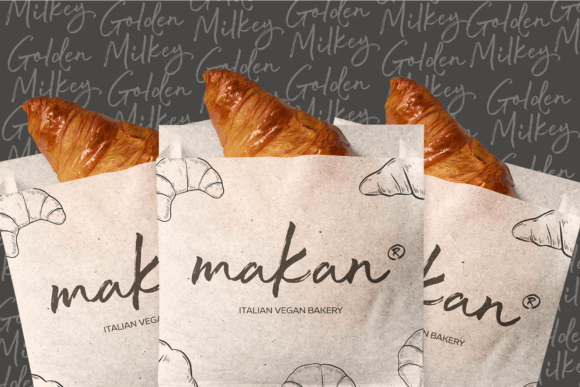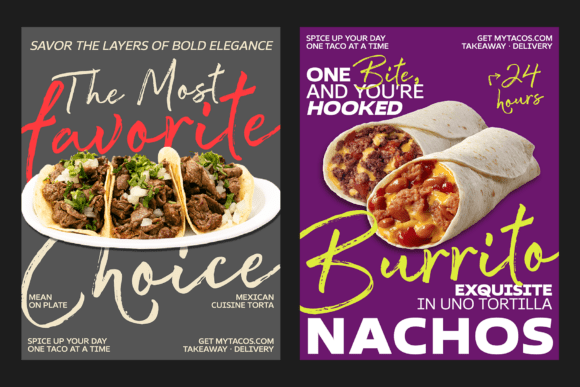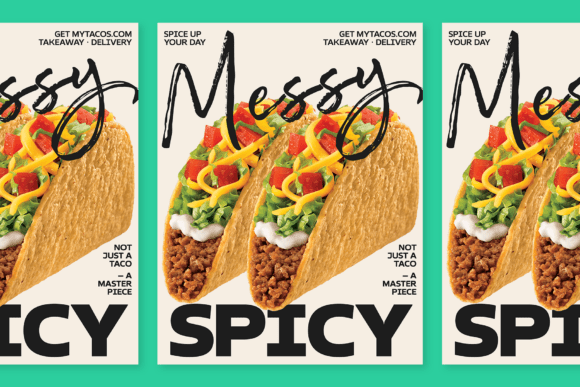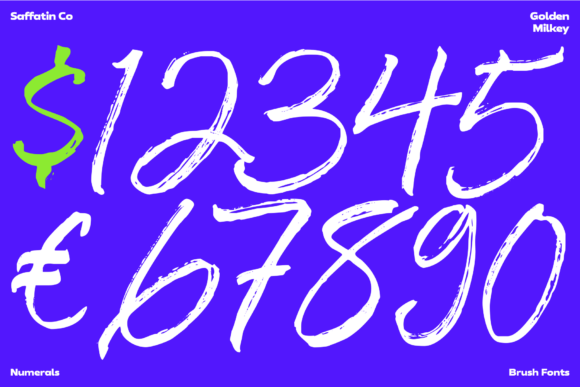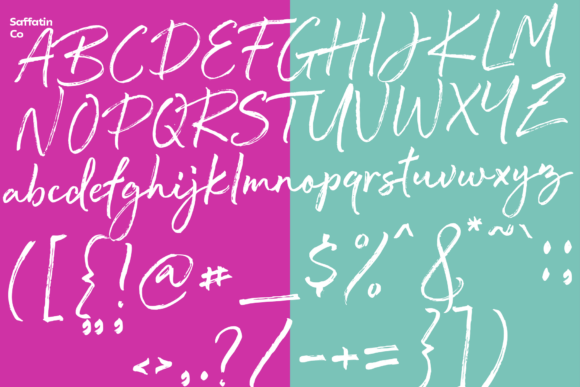
Introduction to Golden Milkey Brush Font
Have you ever found yourself lost in a sea of digital typefaces, searching for the perfect font to elevate your creative project? I know I have. There’s nothing quite like the thrill of discovering a new font that speaks to your artistic vision, and for designers, that moment is priceless. For me, that moment came when I stumbled upon the Golden Milkey Brush Font – a game-changing design resource that has become my go-to for projects that require a touch of elegance and authenticity.
What sets Golden Milkey apart from other fonts is its unique blend of high-quality, hand-painted lettering and modern, versatile appeal. With its smooth flow and natural brush texture, this font effortlessly adds a personal and inviting touch to any design, making it an essential choice for creatives who value style alongside readability.
Key Features of Golden Milkey Brush Font
- High-quality design with a unique, hand-painted feel, perfect for creative projects that require a personal touch.
- Unique characteristics include subtle texture and brushstrokes, adding a touch of organic feel to your designs.
Honest Review: Golden Milkey Brush Font
I recently had the chance to try out the Golden Milkey Brush Font, and I’m excited to share my thoughts. As a designer, I’m always on the lookout for high-quality fonts that can elevate my creative projects.
One of the things that stands out about the Golden Milkey Brush Font is its unique, hand-drawn style. The font features a beautiful, transparent background that really adds to its charm.
Here are some of the things that work well with the Golden Milkey Brush Font:
- ✨ Unique, hand-drawn style that adds a personal touch to designs
- ✨ High-quality font that’s perfect for creative projects
- ⚠️ Limited font sizes available (only 24 and 48 points)
- ⚠️ Not ideal for large blocks of text, as the font can become overwhelming
Overall, I was impressed with the Golden Milkey Brush Font. It’s a great addition to any designer’s toolkit, and I can see it being used in a variety of creative projects. Just be mindful of the limitations, and you’ll be golden!
Golden Milkey Brush Font is perfect for creating invitations, greeting cards, and other paper crafts. It’s also great for designing social media graphics, logos, and branding materials. This versatile font can be used in various design projects, making it a valuable design resource for creatives.